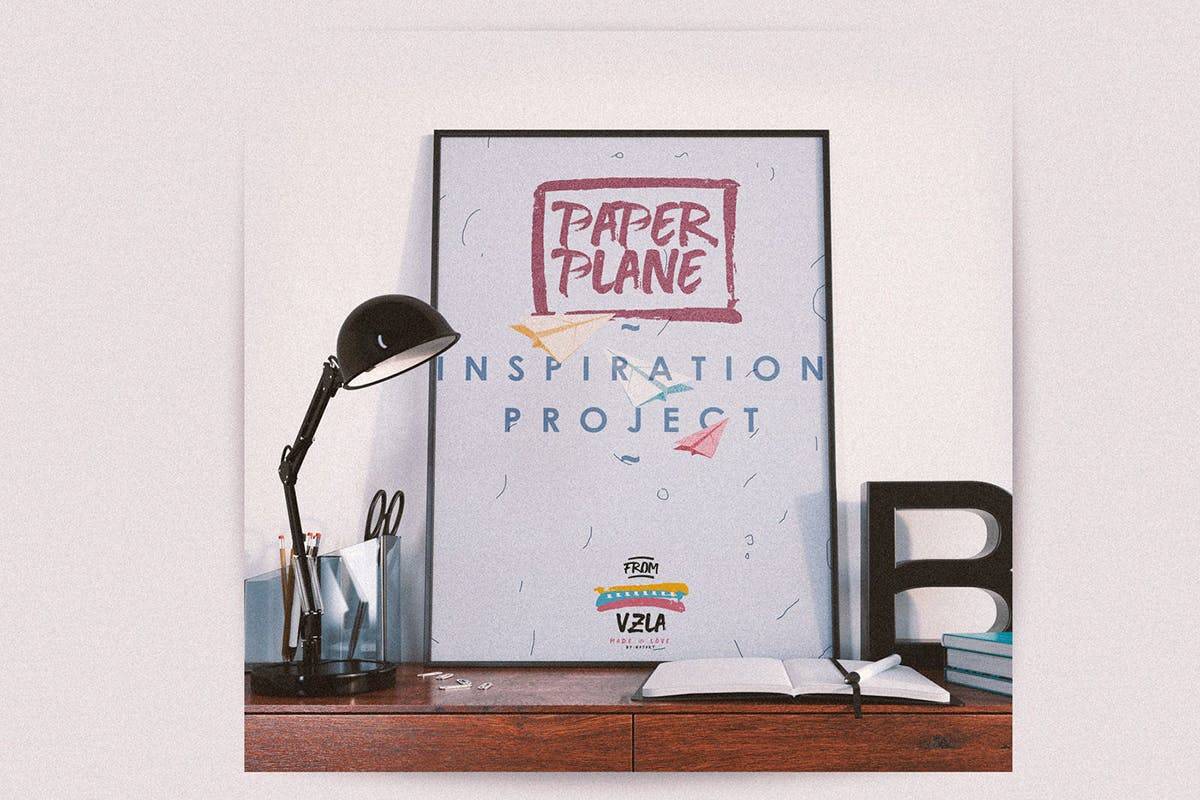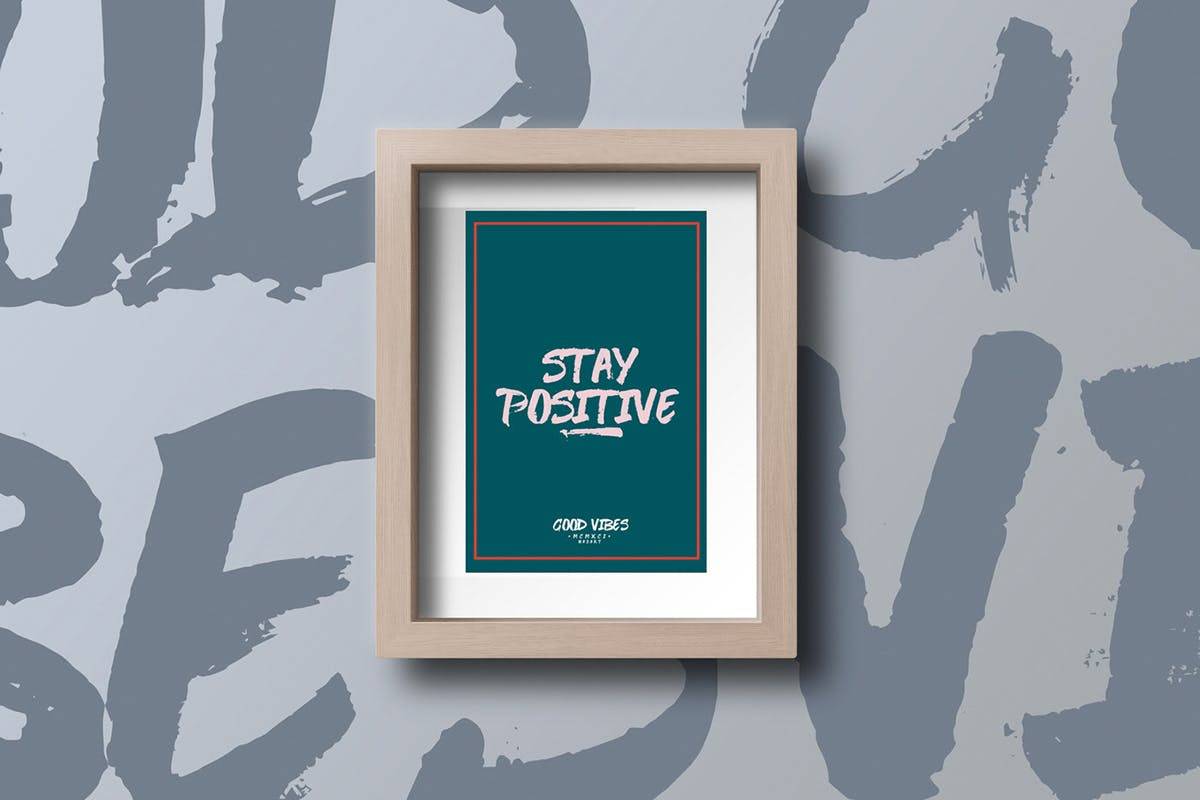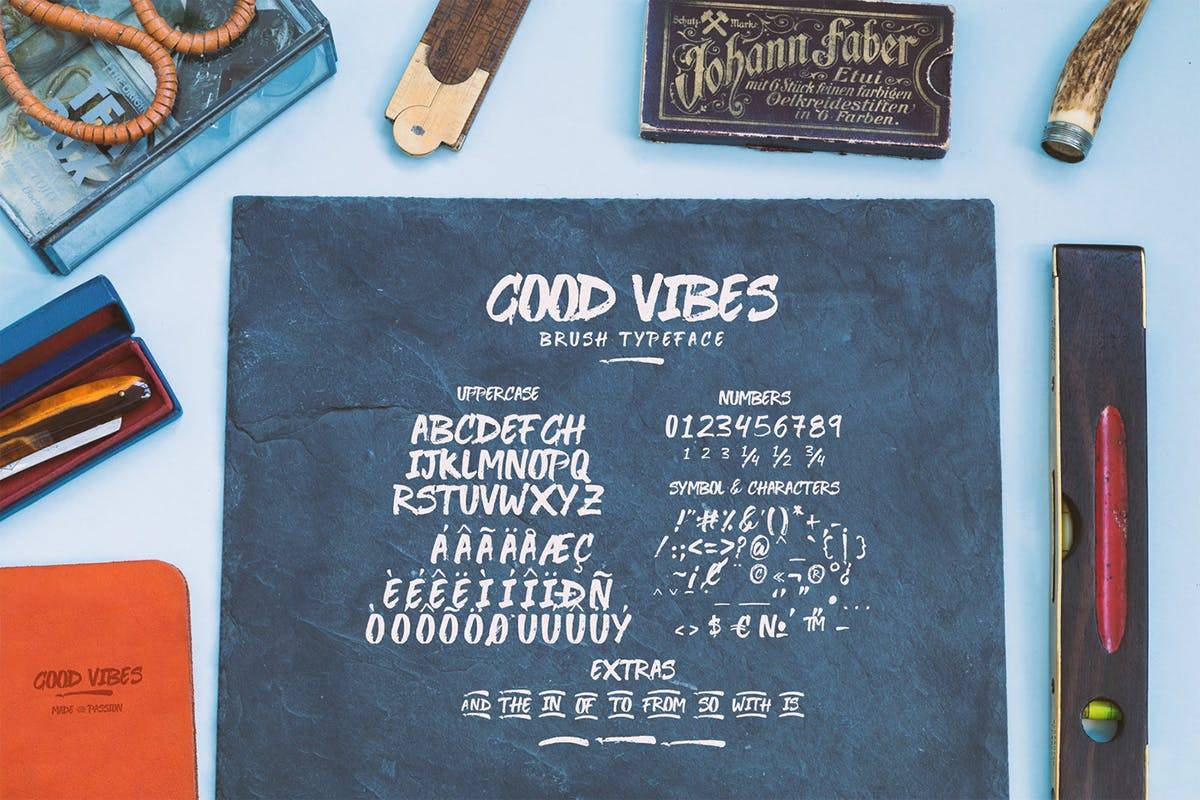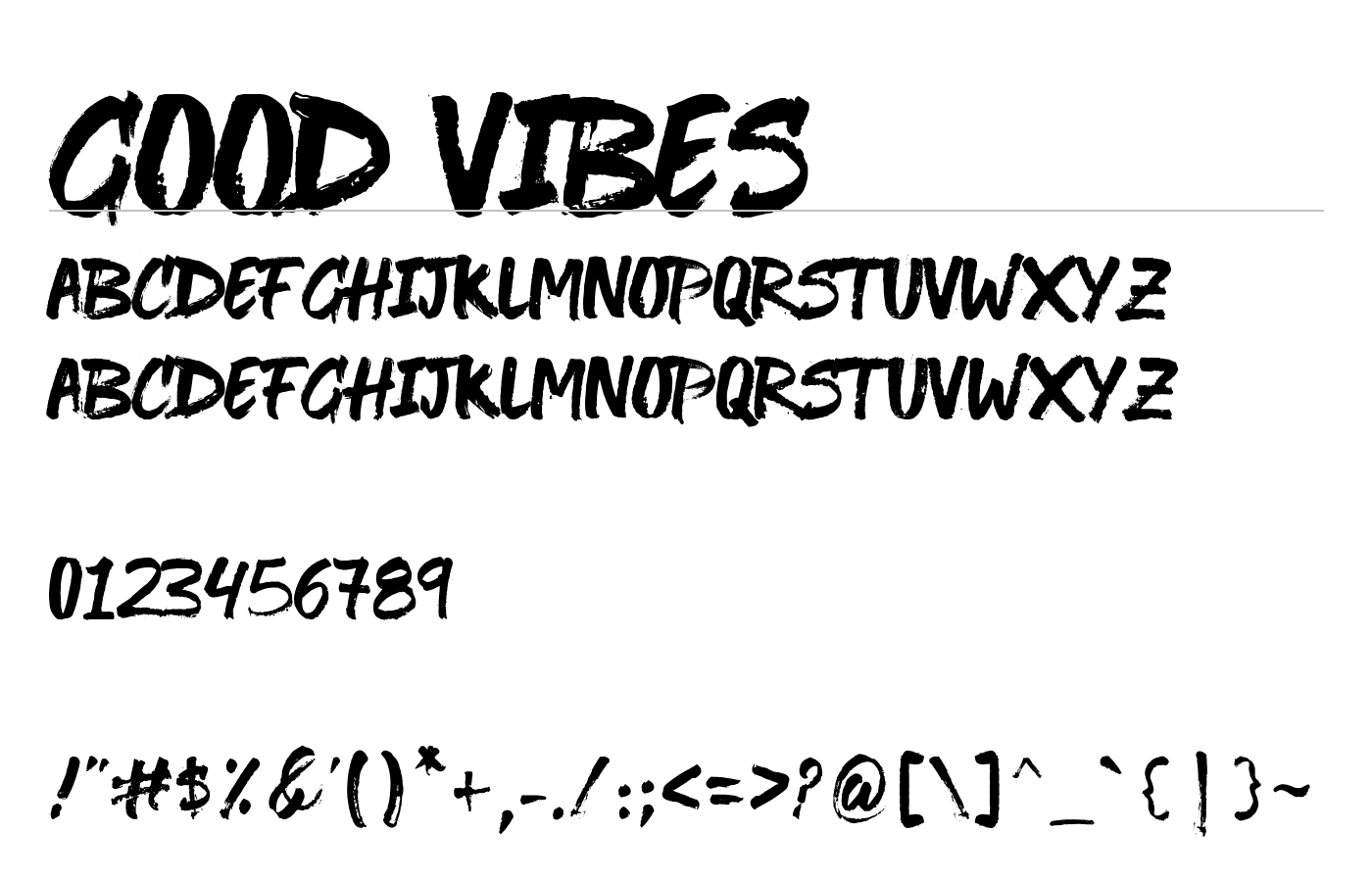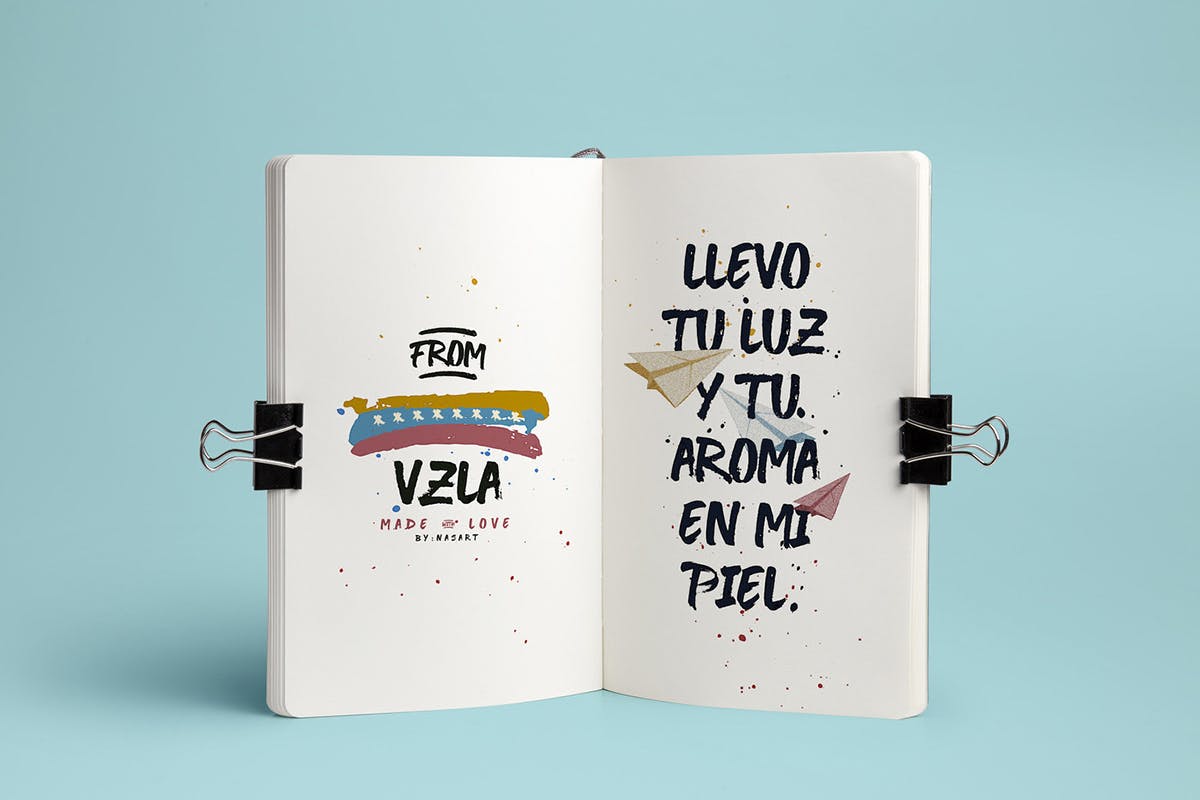
Good Vibes Brush Typeface is a bold, energetic brush script font that captures a hand-painted feel with its textured, irregular strokes. Its casual, dynamic style conveys a playful and informal personality, making it perfect for creative branding, posters, and packaging that want to evoke a sense of fun and authenticity. This font works best in headlines and display uses where expressive, lively visuals are needed to grab attention.
Good Vibes Brush Typeface
About Good Vibes Brush Typeface
Nasser Araujo